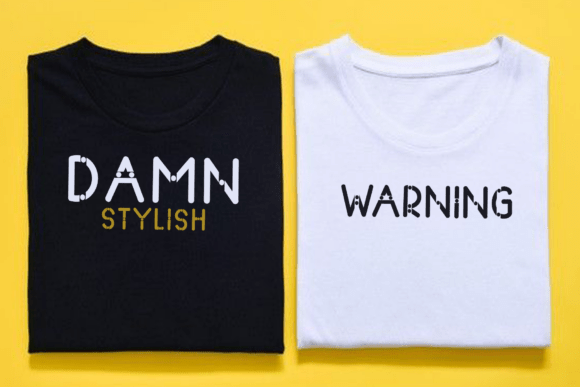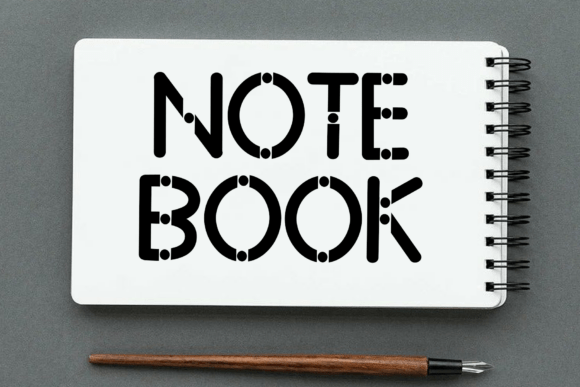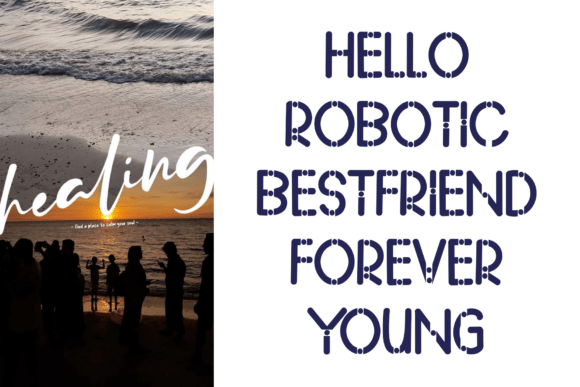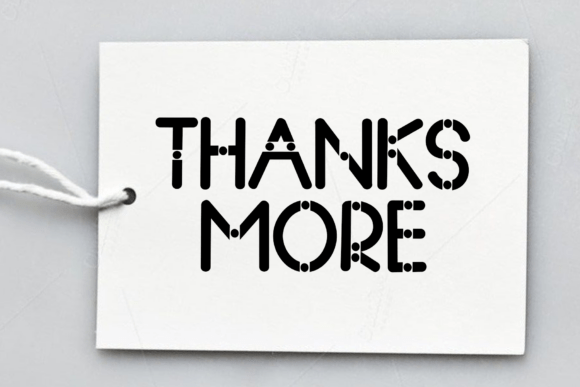
Discover the Quirkiness of Domino Font: Elevate Your Designs with this Unique Typeface
In the vast world of typography, there exist fonts that are bold, elegant, and straightforward. However, every now and then, a font emerges that adds a dash of quirkiness and playfulness to the design landscape. The Domino Font is one such typeface that has been making waves in the design community with its unique charm and versatility. In this article, we’ll dive into the fascinating world of Domino Font, exploring its distinctive features, usage, and why it has become a favorite among designers and crafters alike.
The Uniqueness of Domino Font
Domino Font stands out from the crowd with its decorative and somewhat unconventional design. At first glance, it may appear to be a simple, perhaps even a basic font. However, upon closer inspection, you’ll notice the intricate details and the playful vibe it exudes. This font is a little bit quirky, which is part of its charm. The Domino Font’s design is inspired by the classic game of dominoes, with each letterform carefully crafted to resemble the tiles of the popular game. The result is a font that is not only visually appealing but also tells a story.
One of the key advantages of the Domino Font is its incredible versatility. Whether you’re working on a project that requires a touch of whimsy, a dash of sophistication, or a blend of both, this font is up to the task. From playful greeting cards and invitations to more serious applications like logos and branding materials, Domino Font adapts seamlessly. Its unique design ensures that it stands out in any context, making it an excellent choice for designers looking to add some personality to their work.
Domino Font’s adaptability makes it suitable for a wide range of design projects. Here are a few ideas where this font can truly shine:
- Party Invitations and Greeting Cards: Add a playful touch to your invitations and greeting cards with Domino Font. Its quirky design is sure to set the tone for a fun and memorable event.
- Branding and Logos: For businesses looking to stand out, Domino Font can be a game-changer. Its unique appearance can help create a brand identity that is both memorable and engaging.
- Social Media Graphics: In the world of social media, grabbing attention is key. Domino Font, with its distinctive look, can help your graphics stand out in crowded feeds.
- Crafting and DIY Projects: Crafters and DIY enthusiasts will love using Domino Font in their projects, from scrapbooking to handmade cards and gift tags.
Why Designers and Crafters Love Domino Font
So, why has Domino Font become a favorite among designers and crafters? The answer lies in its ability to add a unique touch to any project. In a world where generic and overused fonts are a dime a dozen, Domino Font offers a refreshing change. Its quirky design not only captures attention but also evokes a sense of nostalgia and playfulness. Moreover, its versatility ensures that it can be used across various projects, making it a valuable addition to any designer’s or crafter’s toolkit.
Tips for Using Domino Font Effectively
To make the most of Domino Font, here are a few tips:
- Pair it with Complementary Fonts: While Domino Font is unique on its own, pairing it with complementary fonts can enhance its appeal. Choose fonts that are simple and elegant to create a balanced look.
- Experiment with Colors: Don’t be afraid to experiment with different colors. Domino Font can look great in bold, bright colors or more subdued tones, depending on the project’s requirements.
- Use it Sparingly: While Domino Font is incredibly versatile, it’s best used sparingly. Use it to highlight key information or to add a touch of personality to your design.
In conclusion, Domino Font is more than just a typeface; it’s a statement piece. Its unique design, versatility, and quirkiness make it an excellent choice for designers and crafters looking to elevate their projects. Whether you’re working on a playful invitation or a serious branding project, Domino Font is sure to add a touch of personality and flair. So, the next time you’re looking for a font that stands out from the crowd, consider giving Domino Font a try.